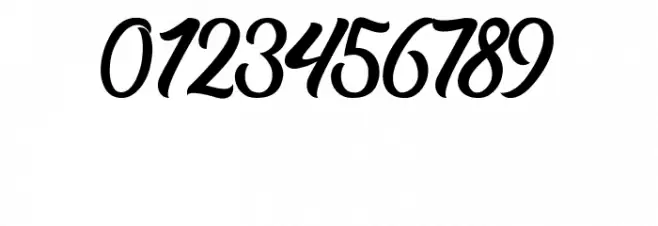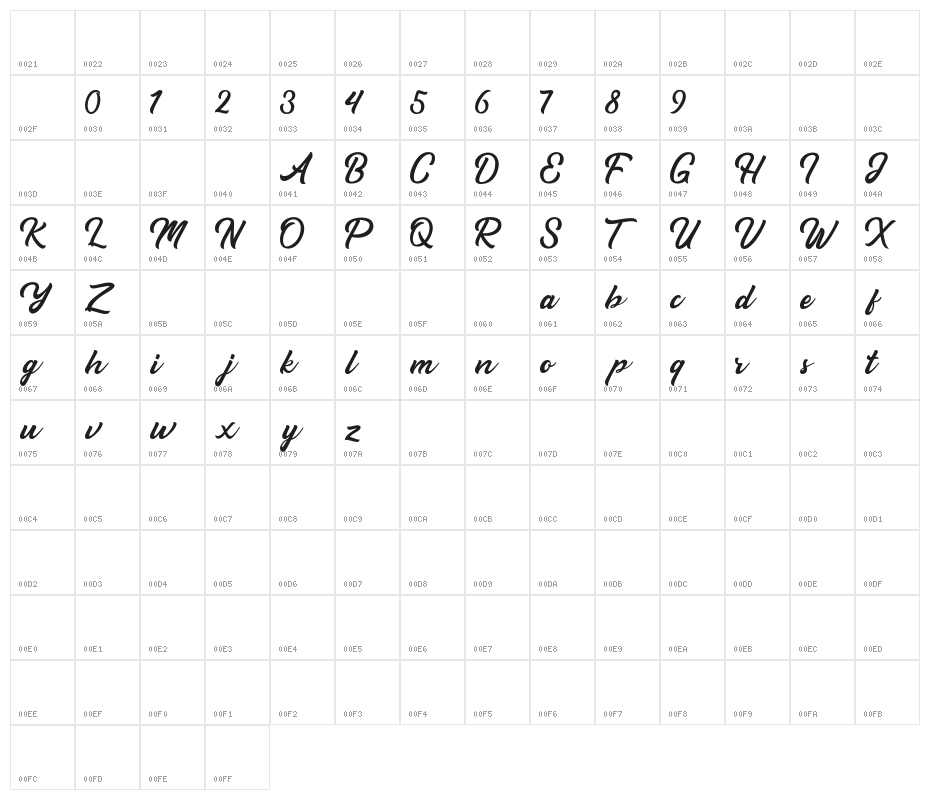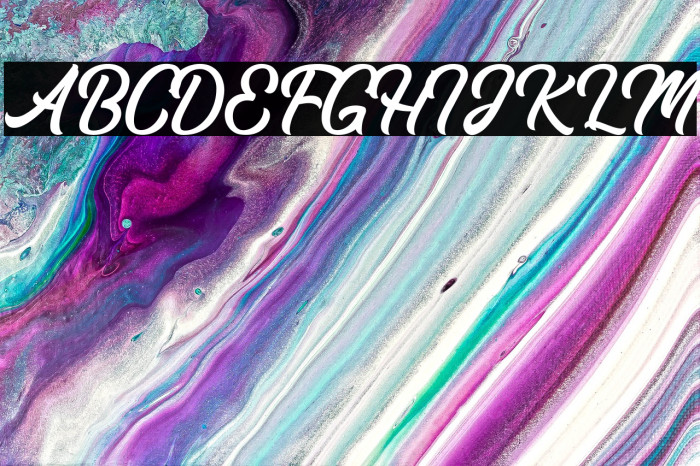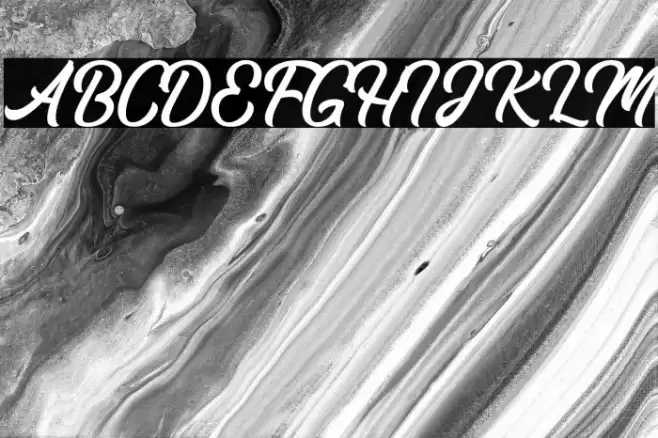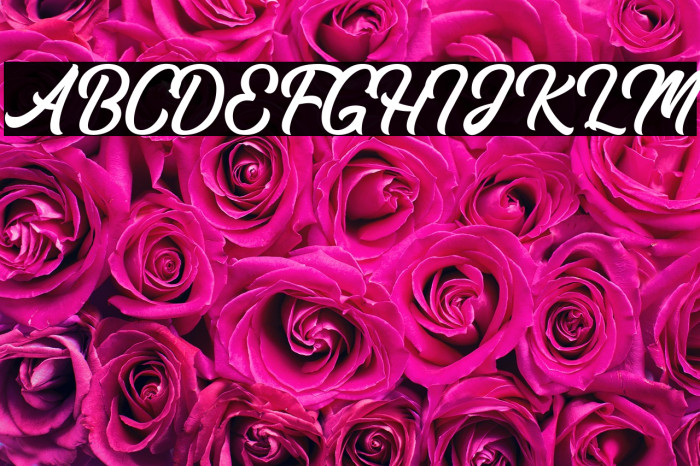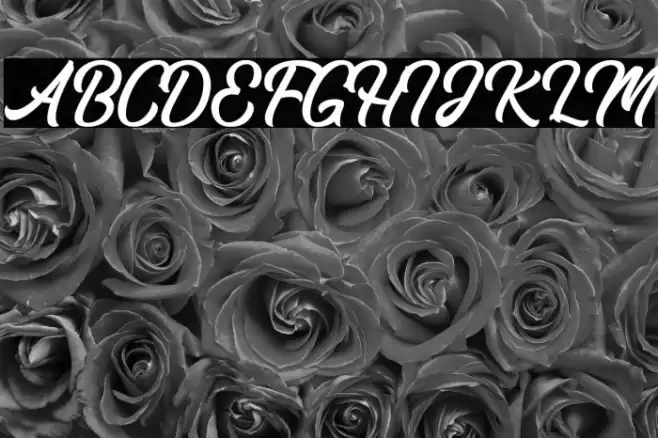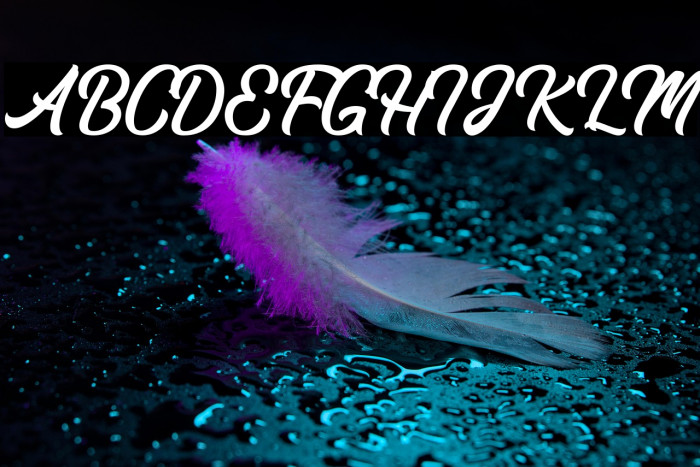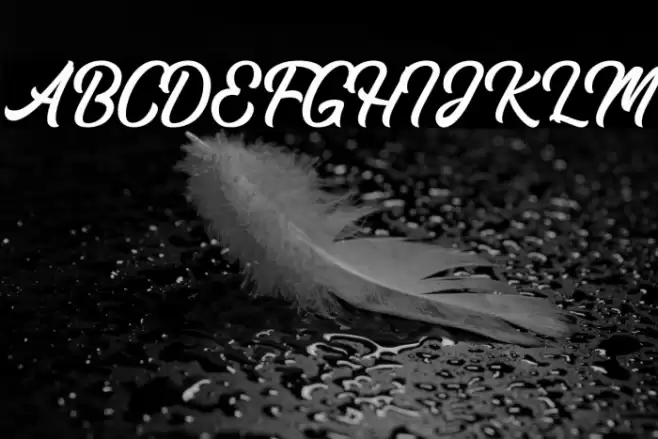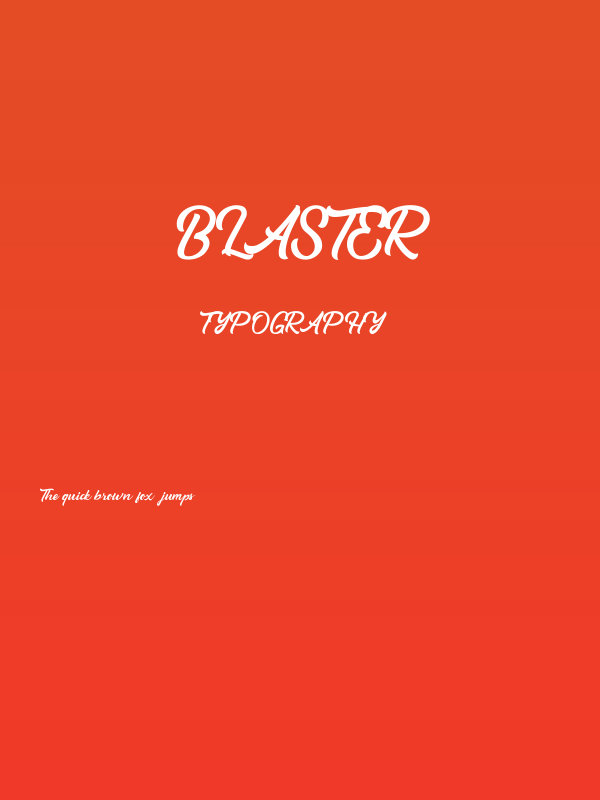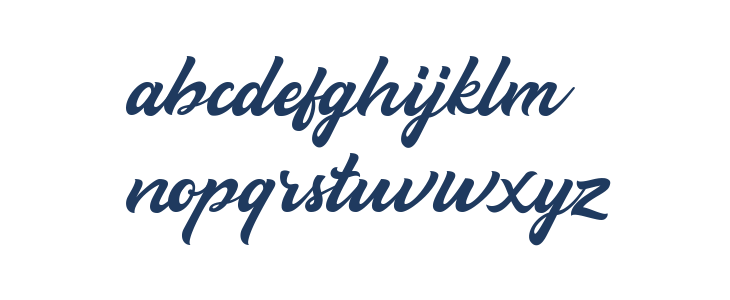
blaster Font
blaster Description
This font features a dynamic and fluid script style, characterized by its elegant and flowing cursive letters. The strokes are smooth and connected, giving it a handwritten appearance that is both stylish and sophisticated. The uppercase letters are bold and slightly slanted, while the lowercase letters maintain a consistent flow, enhancing readability. The numbers are equally well-crafted, maintaining the same fluidity and style as the letters. This font is ideal for projects that require a personal touch, such as invitations, greeting cards, and branding materials. Its artistic flair makes it suitable for creative and decorative purposes.
| Proposed Projects | Ideal for invitations, greeting cards, branding, and decorative projects. |